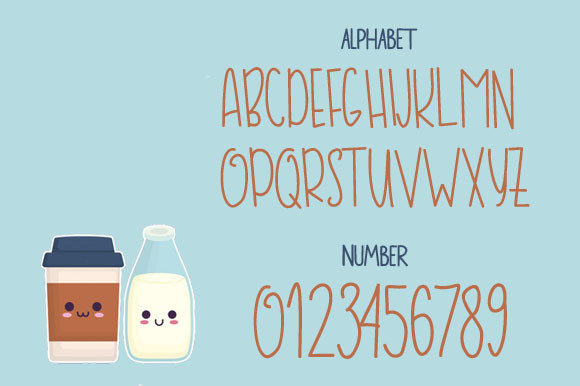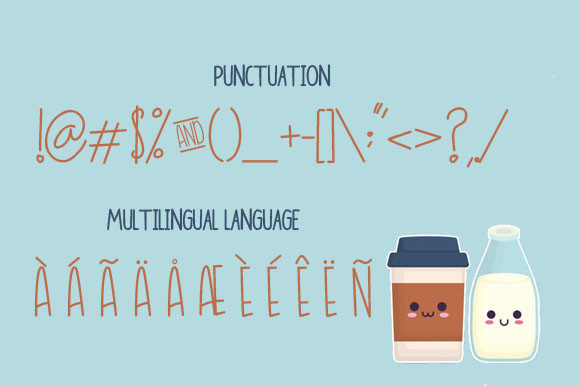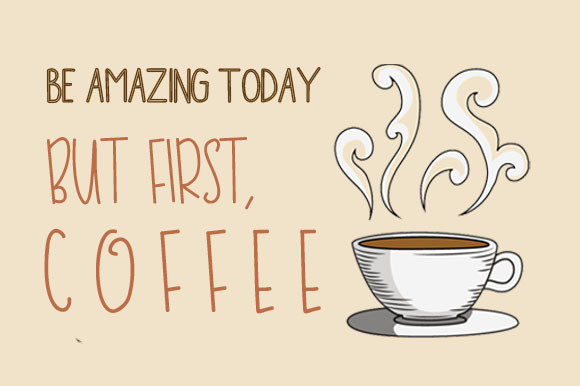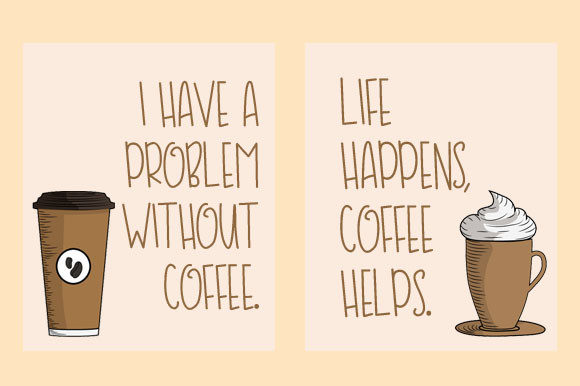
Coffee and Milk Font: A Playful Handwritten Delight for Designers and Crafters
Are you on the hunt for a font that adds a touch of whimsy and playfulness to your designs? Look no further than the Coffee and Milk font! This delightful handwritten font is perfect for creating a wide range of designs, from logos and greeting cards to quotes and more. In this article, we’ll dive into the world of Coffee and Milk, exploring its unique features, uses, and benefits for designers and crafters.
What is Coffee and Milk Font?
Coffee and Milk font is a playful handwritten font that’s sure to bring a smile to your face. Its casual, carefree vibe makes it an excellent choice for designs that require a personal touch. The font’s unique character lies in its imperfect, hand-crafted feel, which gives it a charming and endearing quality.
Key Features of Coffee and Milk Font
- Playful and Whimsical: Coffee and Milk font is designed to add a touch of playfulness to your designs. Its handwritten feel makes it perfect for creating whimsical designs that stand out.
- Handwritten Style: The font’s handwritten style gives it a personal and unique feel. It’s perfect for creating designs that require a human touch.
- Versatile: Coffee and Milk font is incredibly versatile and can be used in a wide range of contexts, from logos and branding to greeting cards and quotes.
- Easy to Read: Despite its playful nature, Coffee and Milk font is easy to read, making it perfect for designs that require a clear and concise message.
Uses of Coffee and Milk Font
Coffee and Milk font is an incredibly versatile font that can be used in a wide range of designs, including:
- Logos and Branding: The font’s playful and whimsical nature makes it perfect for creating logos and branding materials that require a personal touch.
- Greeting Cards: Coffee and Milk font is ideal for creating greeting cards, invitations, and other paper crafts that require a touch of whimsy.
- Quotes and Posters: The font’s clear and concise nature makes it perfect for creating quotes and posters that require a bold and eye-catching message.
- Social Media Graphics: Coffee and Milk font can be used to create engaging social media graphics that require a personal and playful touch.
Benefits of Using Coffee and Milk Font
So, why should you choose Coffee and Milk font for your designs? Here are just a few benefits of using this delightful font:
- Adds a Personal Touch: Coffee and Milk font adds a personal touch to your designs, making them more relatable and engaging.
- Stand Out from the Crowd: The font’s unique and playful nature helps your designs stand out from the crowd, making them more noticeable and memorable.
- Versatile: The font’s versatility makes it perfect for a wide range of designs, from logos and branding to greeting cards and quotes.
Tips for Using Coffee and Milk Font
Here are a few tips for using Coffee and Milk font in your designs:
- Use it Sparingly: While Coffee and Milk font is playful and whimsical, it can be overwhelming if used too much. Use it sparingly to add a touch of personality to your designs.
- Pair it with Other Fonts: Coffee and Milk font pairs well with other fonts, such as sans-serif fonts. Experiment with different font combinations to find the perfect look for your design.
- Experiment with Colors: The font’s playful nature makes it perfect for experimenting with different colors and color combinations.
| Font Name | Coffe and Milk Font |
Coffee and Milk font is a playful handwritten font that’s perfect for designers and crafters who want to add a touch of whimsy to their designs. Its unique features, versatility, and ease of use make it an excellent choice for a wide range of designs, from logos and branding to greeting cards and quotes. Whether you’re a seasoned designer or a crafty DIY enthusiast, Coffee and Milk font is sure to become a favorite in your font collection.